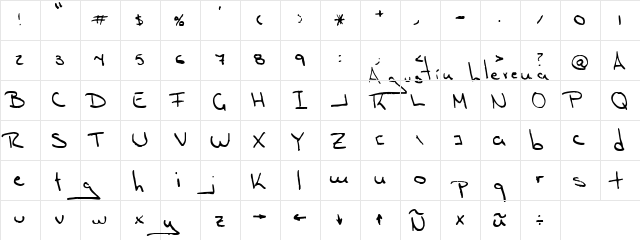
Augustin Hand
| Style | Hand |
| Foundry | Font Garden |
| Designer | Ellinor Rapp |
Design Context for Augustin Typeface
Augustin brings a calligraphic fluidity to the page — its connecting strokes and expressive curves give it an unmistakably human quality.